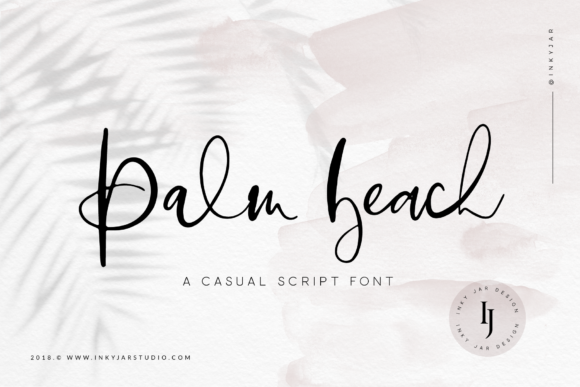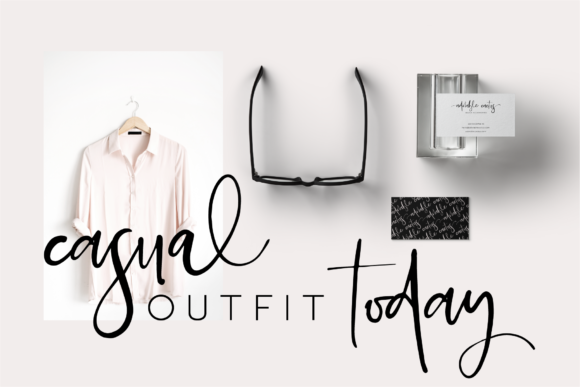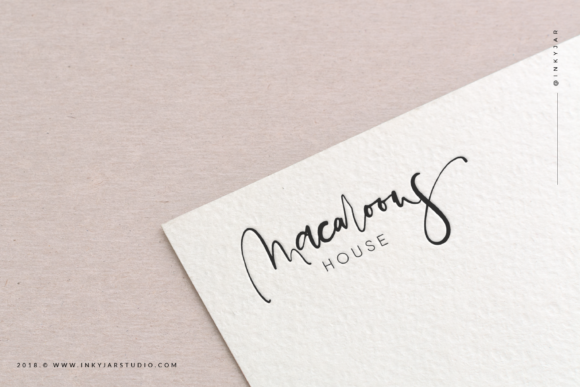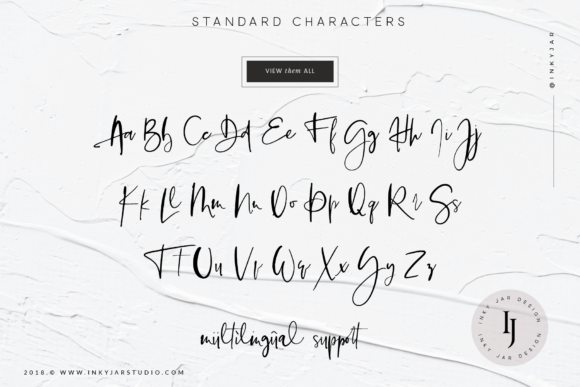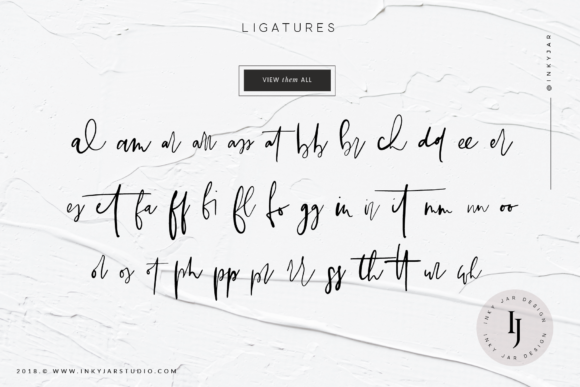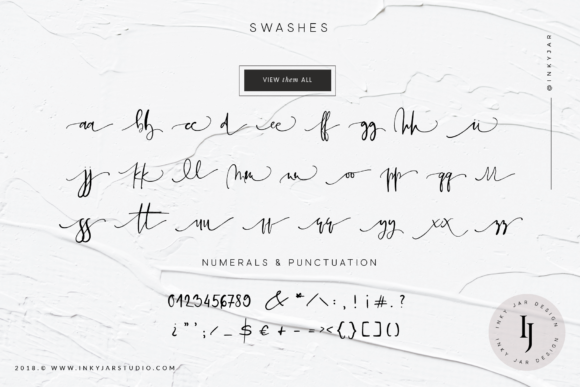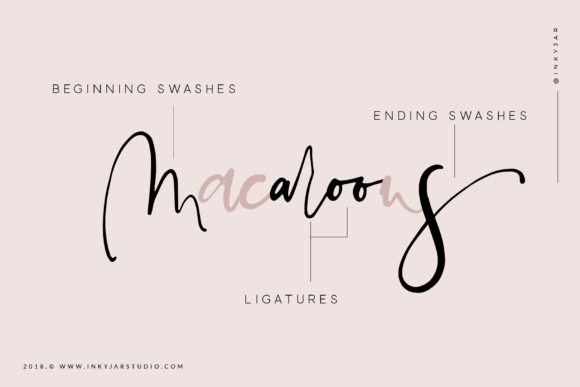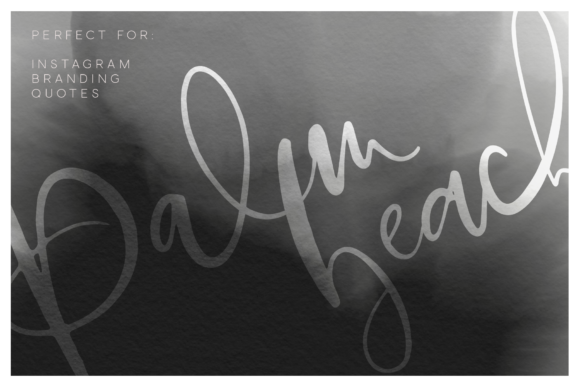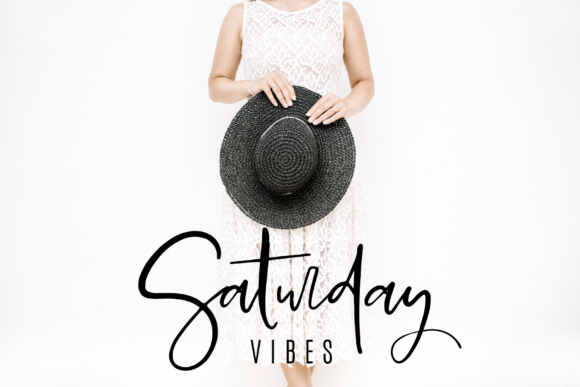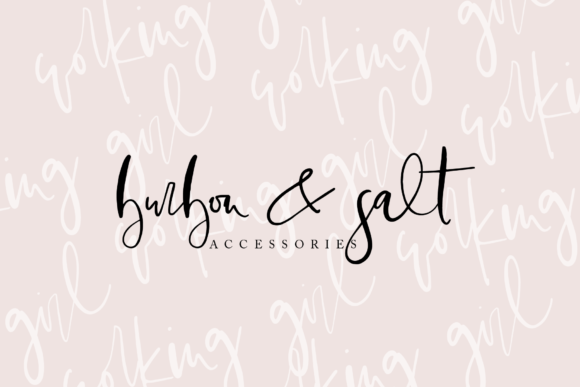
Palm Beach Script Font
About Palm Beach Script Font
The Palm Beach is a casual script font with a great readability. It’s perfect for branding, Instagram posts or quotes, and every other design which needs a handwritten touch.